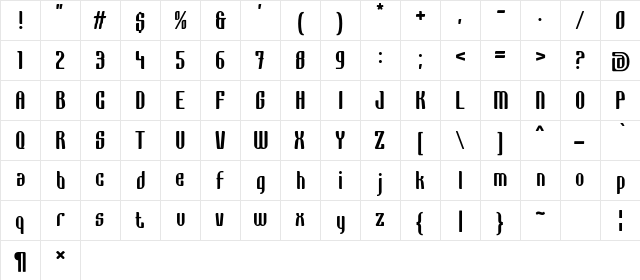
Grage ExtraBold Regular
| Designer | Emanes Dsign |
Design Context for Grage ExtraBold Typeface
Grage ExtraBold offers clean, dependable letterforms without strong stylistic allegiance, making it a practical choice for designers who need flexibility. The heavy weight commands attention and anchors typographic hierarchies.